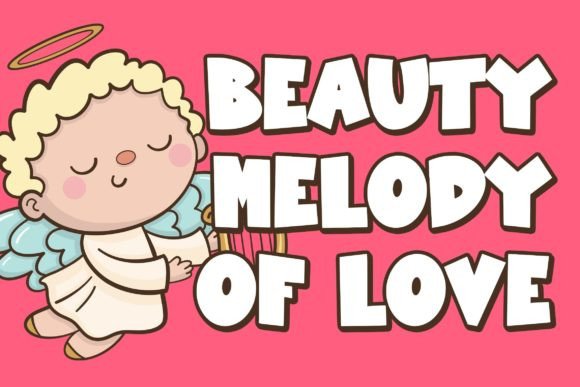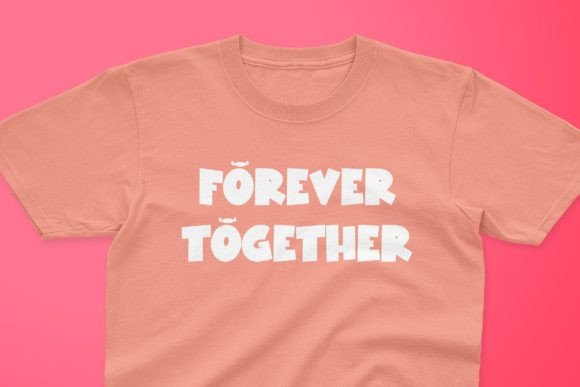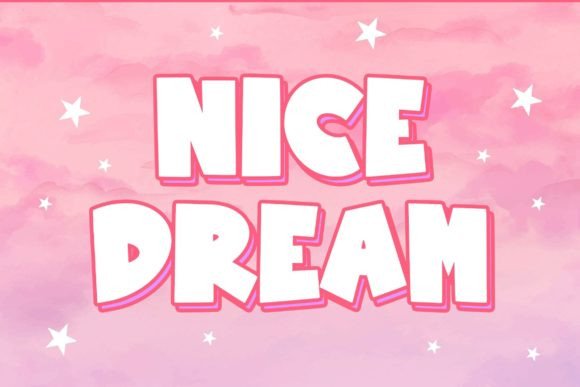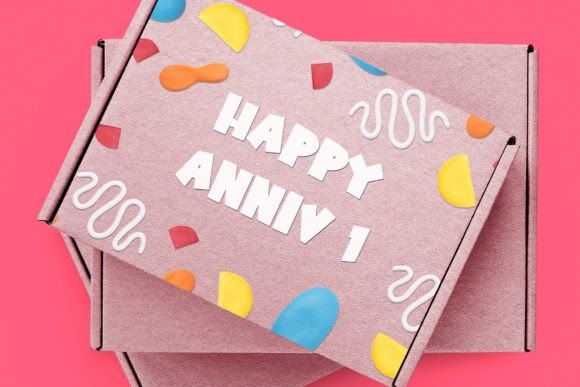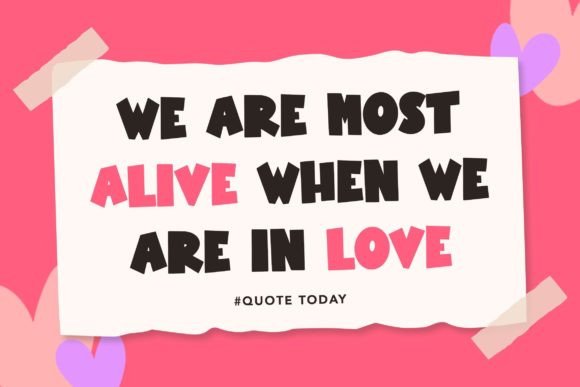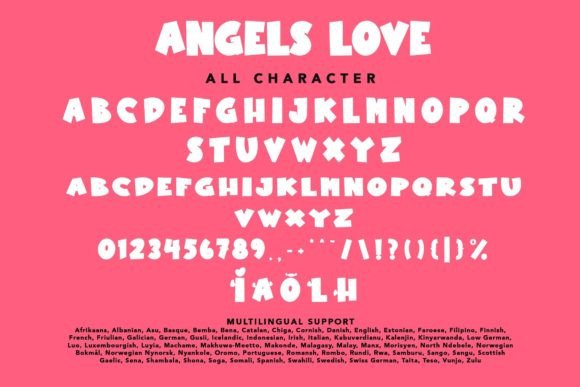
The Quest for the Perfect Font: Discovering Angels Love
I’ll never forget the time I was working on a wedding invitation project, and my client asked for a font that was “cute, yet elegant.” I scoured the internet, tried out dozens of fonts, but nothing seemed quite right. That was until I stumbled upon Angels Love, a charming display font that instantly captured the essence of the project. In this article, I’ll share my experience with Angels Love, its features, and how to make the most of it in your designs.
What Makes Angels Love Special?
Angels Love is a beautiful, handwritten font that exudes a sense of playfulness and sophistication. Its distinctive characters make it perfect for a variety of design projects, including branding, logos, wedding designs, media posts, advertisements, product packaging, and more.
Here’s what I love about Angels Love:
- ✨ Cute and adorable: Angels Love is perfect for designs that require a touch of whimsy and charm.
- ✅ Easy to read: Despite its playful nature, the font remains legible, even at smaller sizes.
- 💕 Versatile: Angels Love works well for both digital and print projects.
And here are a few quirks to keep in mind:
- 🤔 Limited use in body text: While Angels Love is stunning as a display font, it may not be the best choice for longer blocks of text.
- ⚠️ Requires careful kerning: As with any handwritten font, some characters may require manual kerning for optimal results.
The Story Behind Angels Love
Angels Love was designed with love and care by a talented font creator who wanted to craft a font that would bring joy to designers and their clients. The font’s playful, yet elegant feel makes it perfect for a wide range of design projects.
Q: Is Angels Love suitable for body text?
A: While Angels Love is a beautiful font, it’s best suited for headings and titles. For longer blocks of text, consider using a more traditional font.
Q: Does Angels Love support OpenType features?
A: Yes, Angels Love supports various OpenType features, including stylistic alternates and glyphs.